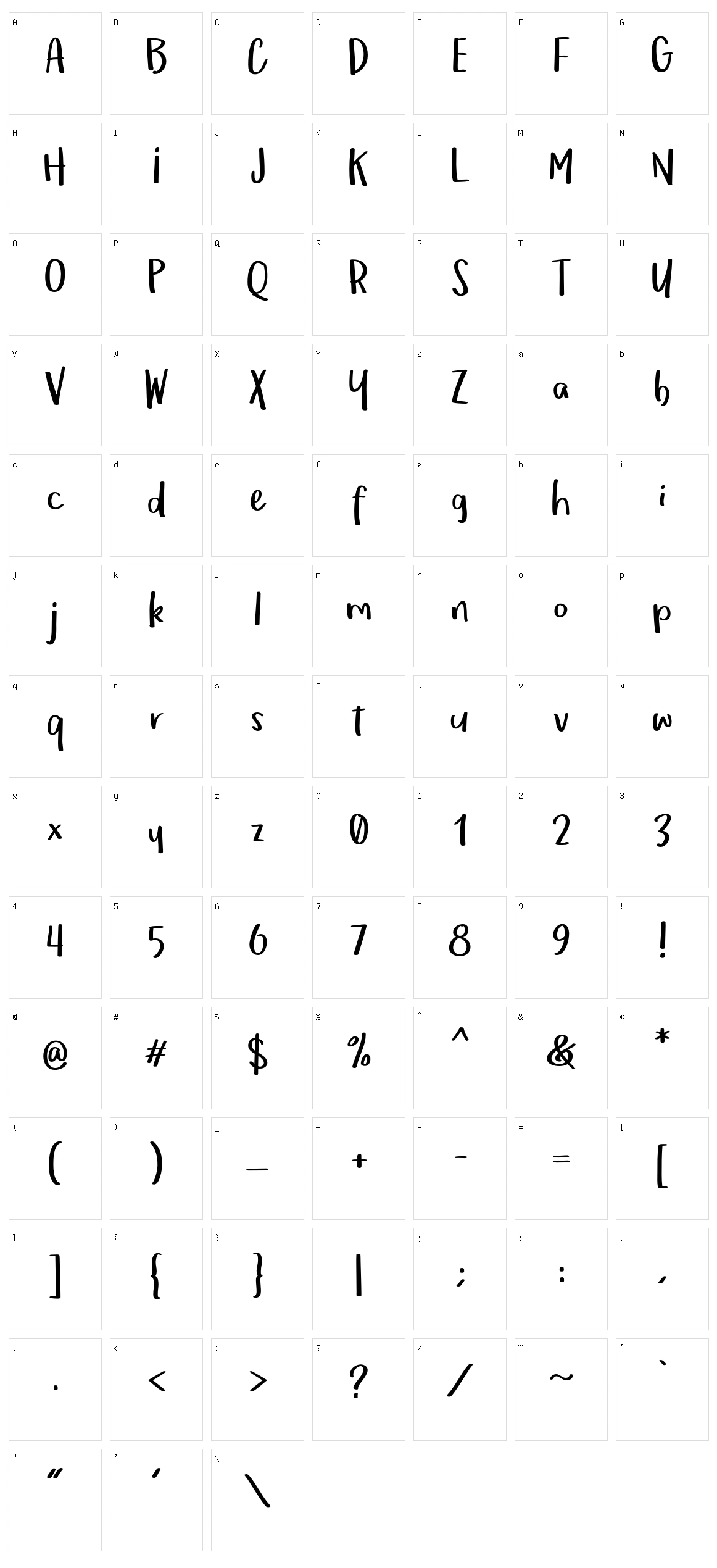
In order to enliven "Om Telolet om" which became a worldwide trending topic a few days ago and welcomed the New Year 2017 with the distinctive sound of trumpets "Telolet telolet", then Locomotype released a new font called Om Om Tolelot.
This font comes with hand-written style with an irregular shape. We want to give the impression of a natural and more personal. In addition to the basic character, Om Om Telolet proceed with OpenType feature; stylistic alternates and some basic ligature; so you can create a design with more flexibility.